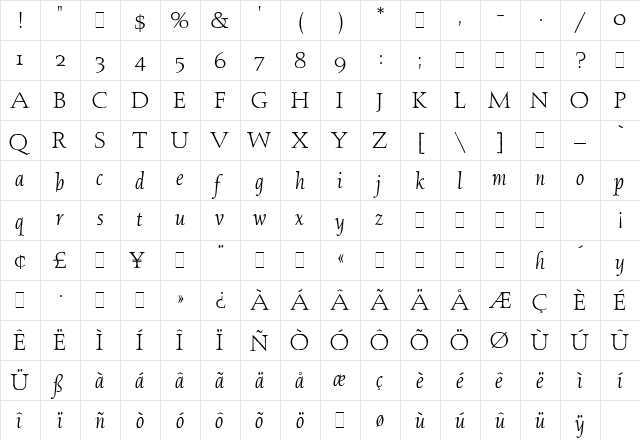
Aquinas Regular
Design Context for Aquinas Typeface
Aquinas takes a measured approach to typography — its balanced proportions and neutral character make it a reliable workhorse for both digital and print work.